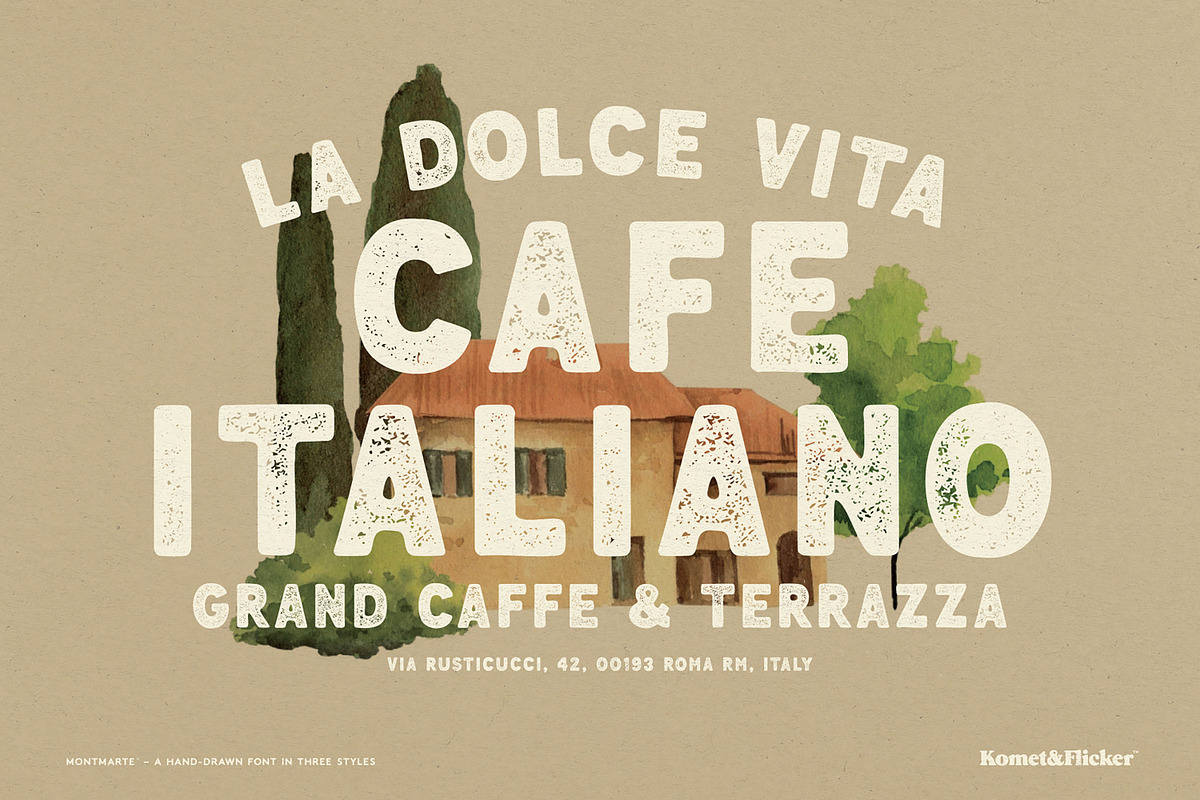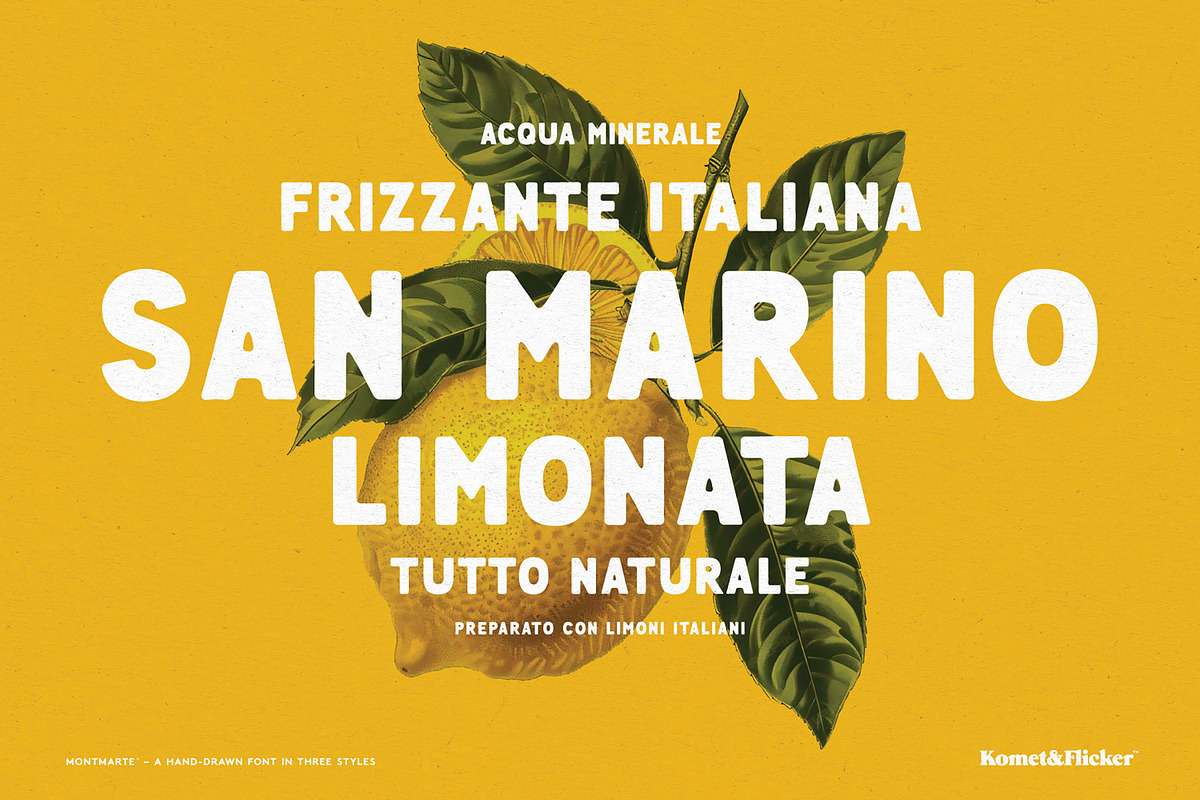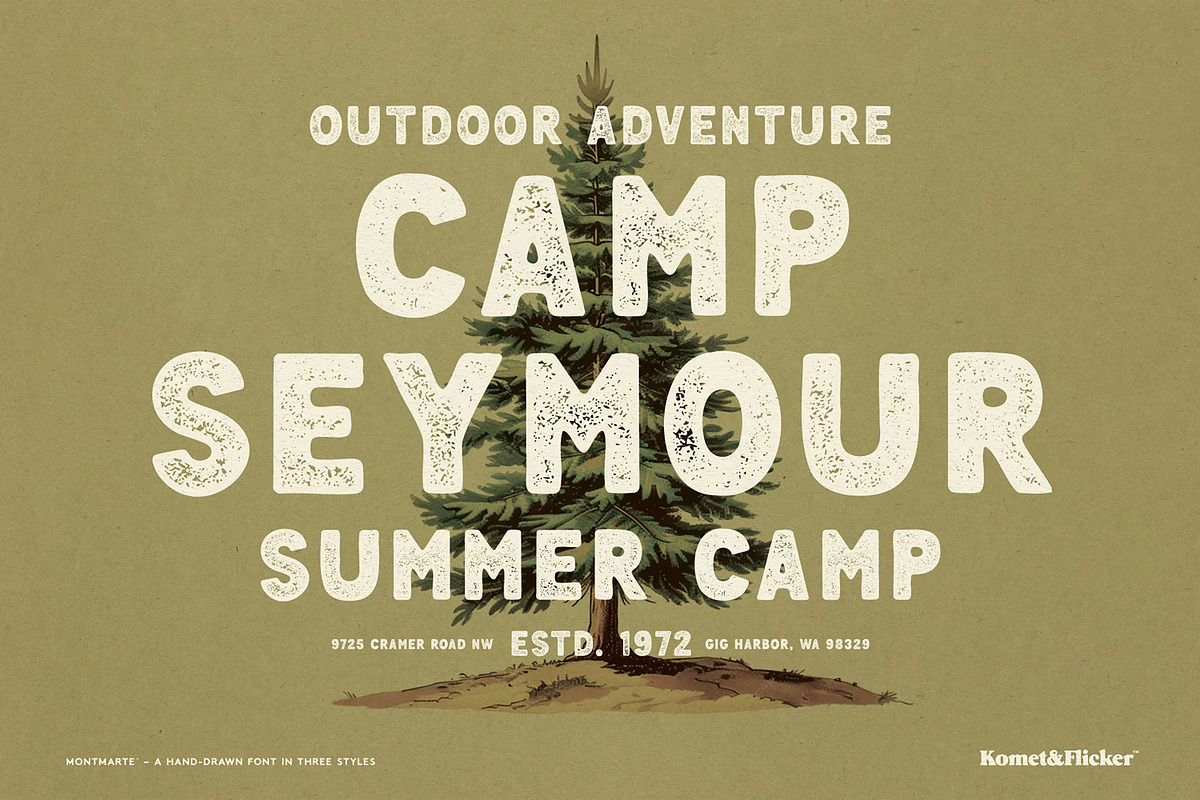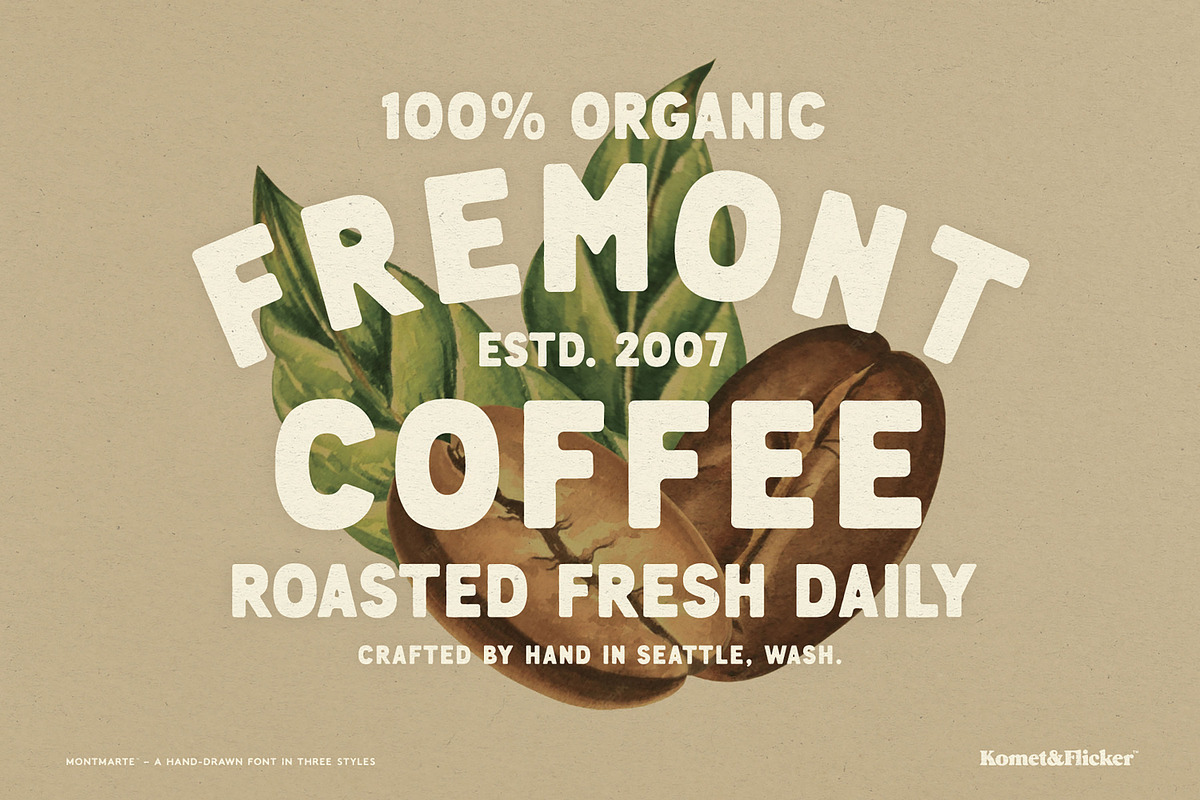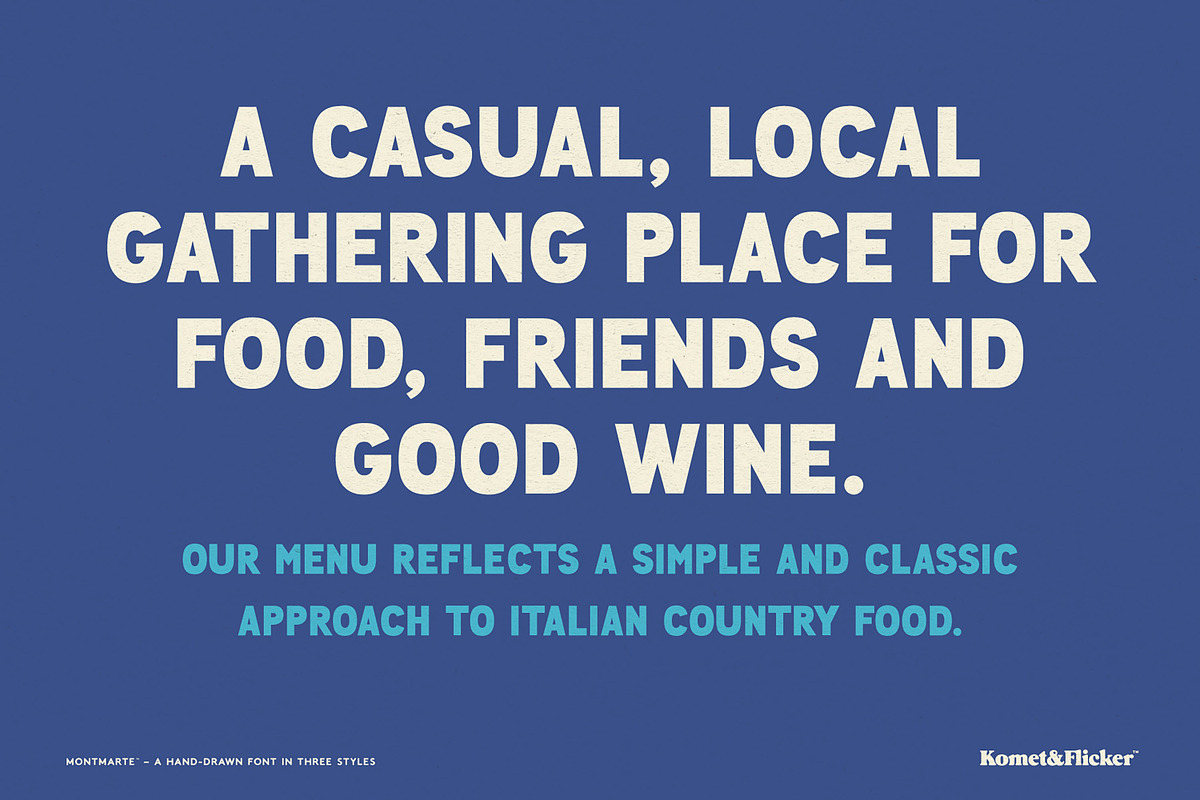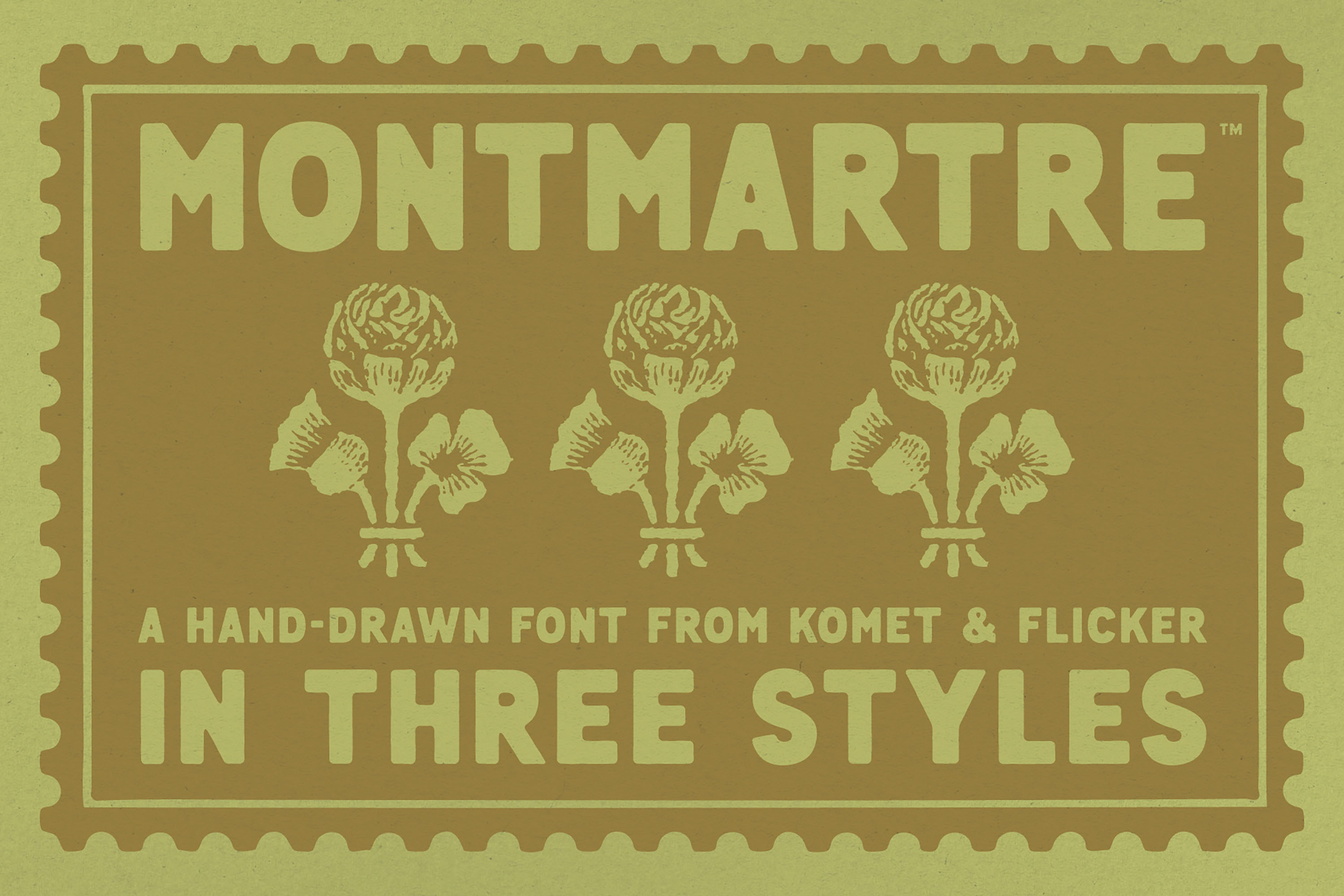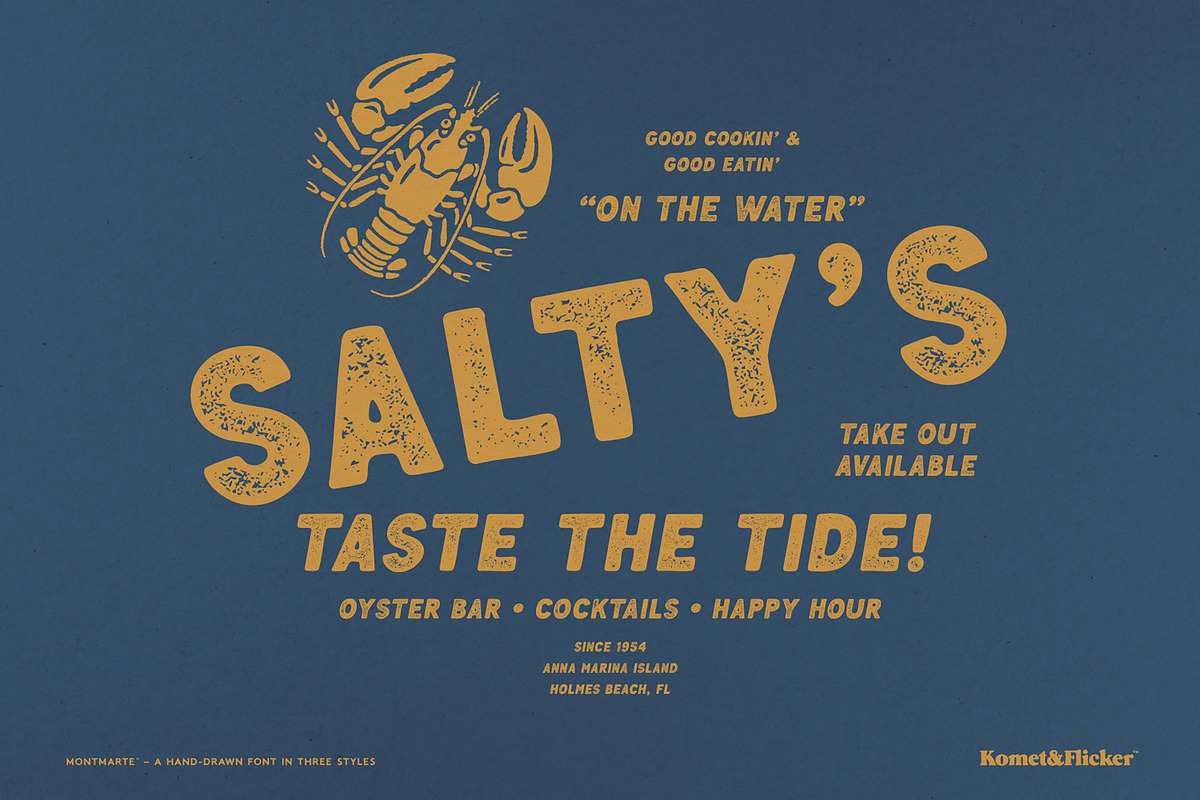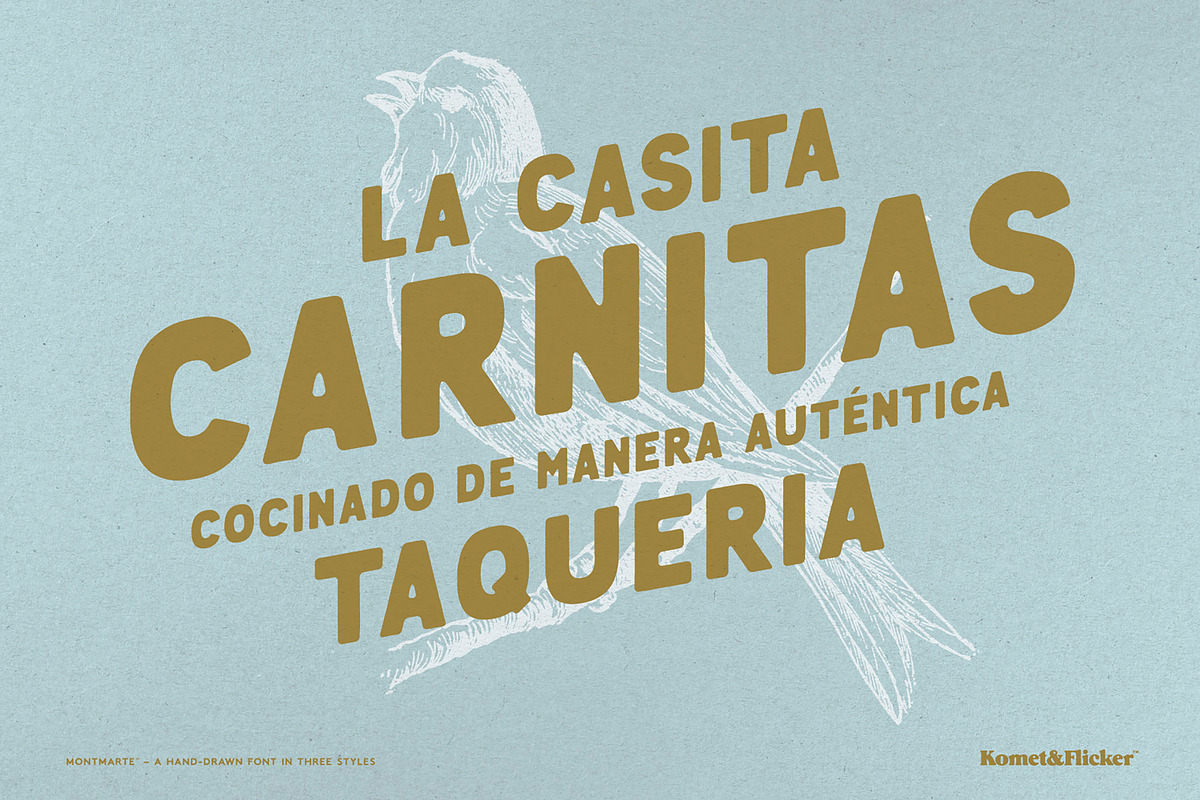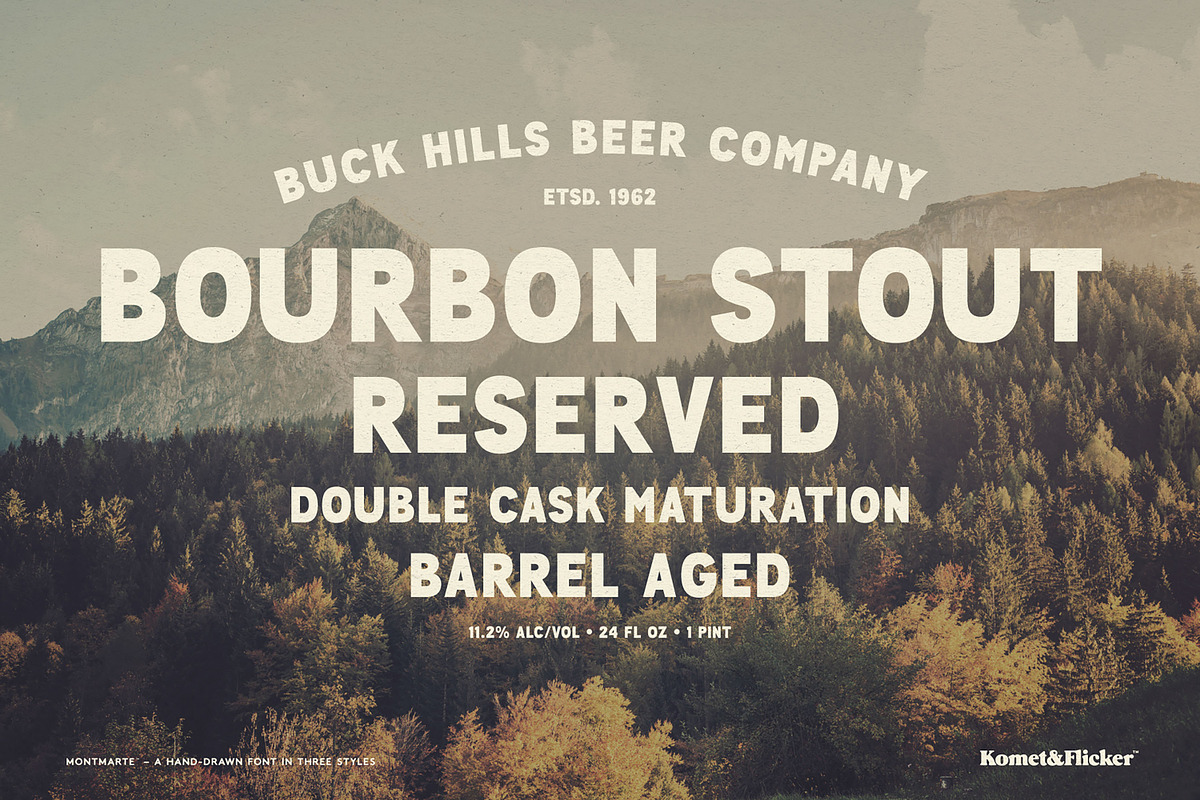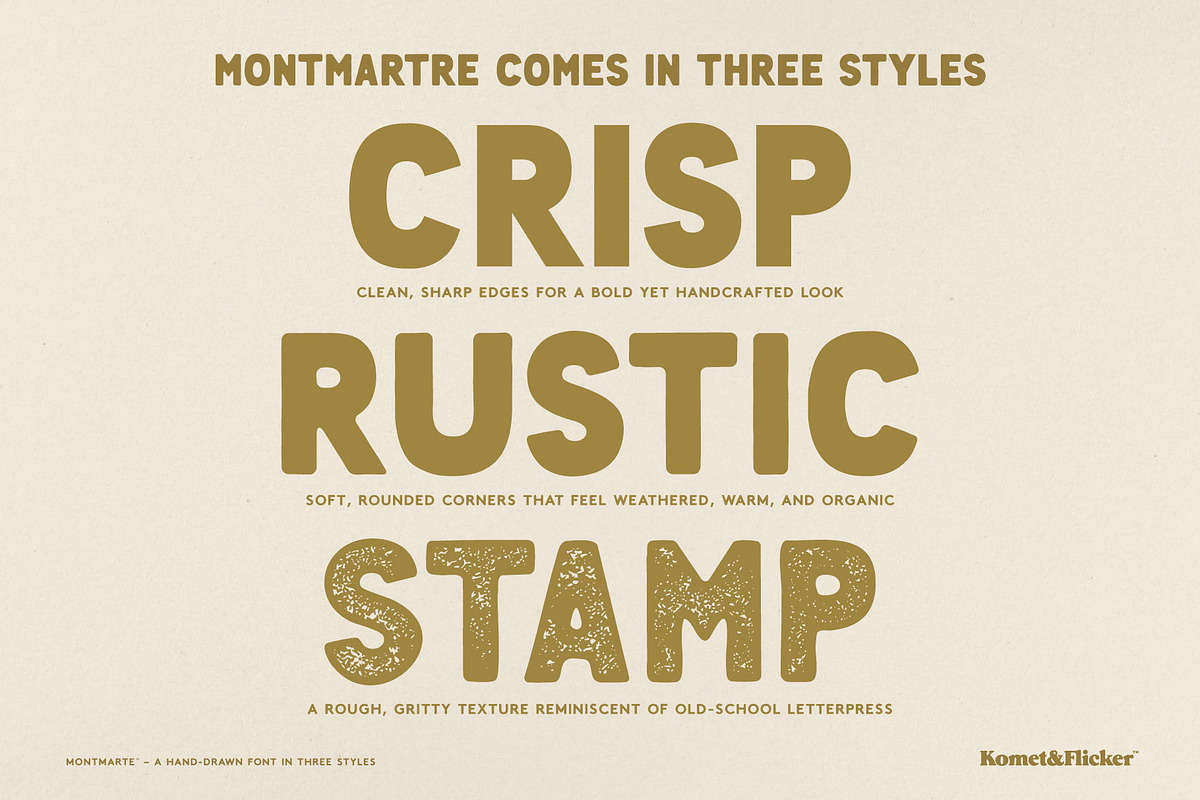
Montmartre - A Hand-drawn Font
Meet Montmartre, a hand-drawn all-caps typeface inspired by the charm of artisan signage and vintage print work. Every letter is crafted with subtle irregularities that give your designs warmth, personality, and a distinctly human touch.
Three Distinct Styles for Maximum Versatility
Montmartre comes in three unique styles, each designed to give you complete control over the mood of your project:
Crisp – Clean, sharp edges for a bold yet handcrafted look.
Rustic – Soft, rounded corners that feel weathered, warm, and organic.
Stamp – A rough, gritty texture reminiscent of inked impressions and old-school letterpress.
Though Montmartre is an all-caps font, its lowercase characters are alternate renders of the same letterforms, giving you extra variation and the ability to create more dynamic, natural-looking typography. Mix and match effortlessly to achieve an authentic hand-drawn rhythm.
And to elevate your compositions even further, Montmartre includes a set of 11 custom connecting words (such as: and, the, with) each available in both lower and uppercase styles.
THIS FONT INCLUDES
- Full A-Z uppercase basic latin characters
- Lowercase glyphs are alternate renders
- Select European specific characters
- Numbers, punctuation, and select symbols
- Pre-made common fractions
- Set of 11 custom connecting word glyphs in upper and lowercase